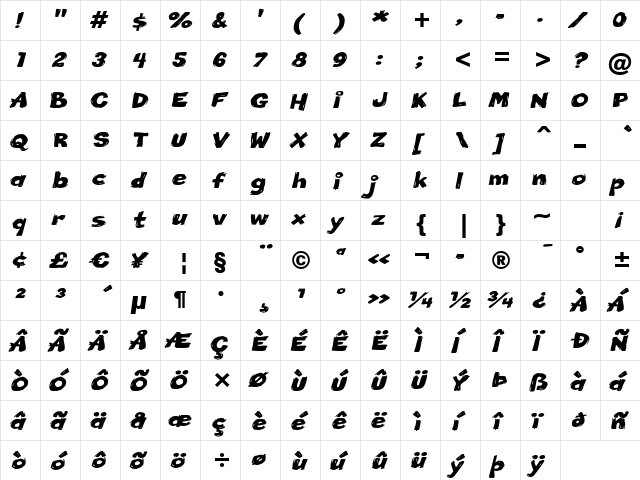
Little Piggy BTN Wide Oblique
Design Context for Little Piggy BTN Wide Typeface
Little Piggy BTN Wide is a composed and adaptable typeface that performs quietly and consistently across a wide range of design contexts. The dynamic lean of this cut emphasises speed and emphasis in any layout.
Pro Tip: Use Little Piggy BTN Wide for emphasis, pull quotes, and subheadings where its slanted energy can add rhythm to the layout.